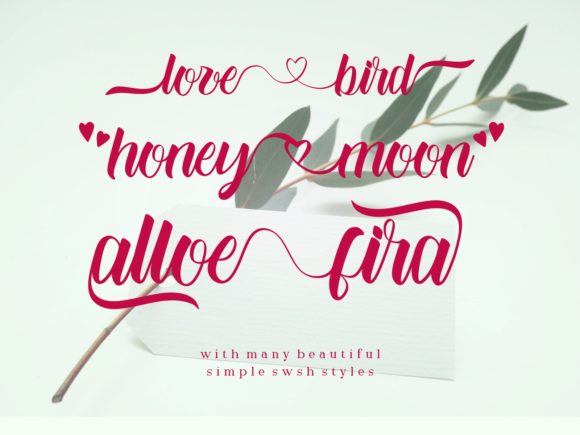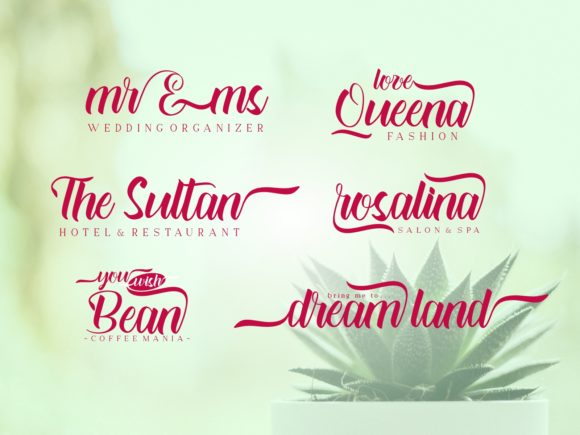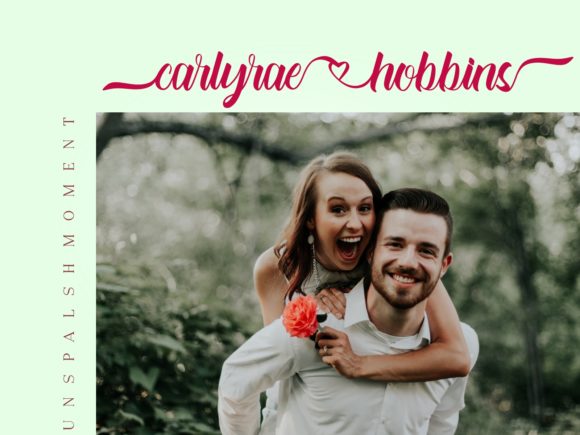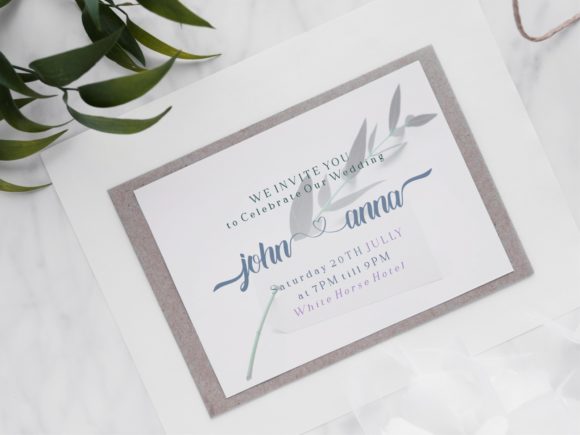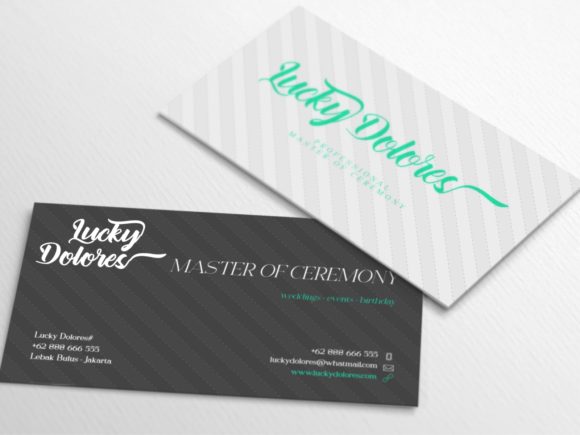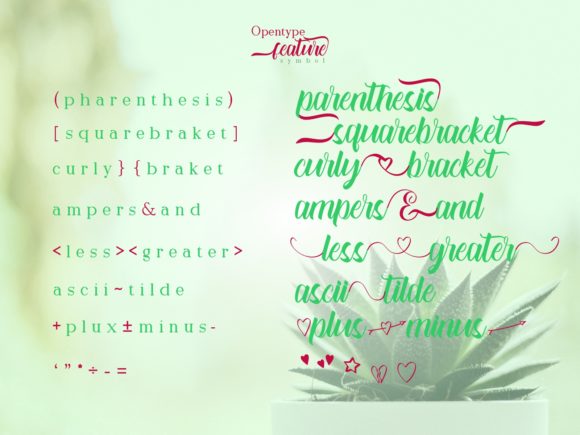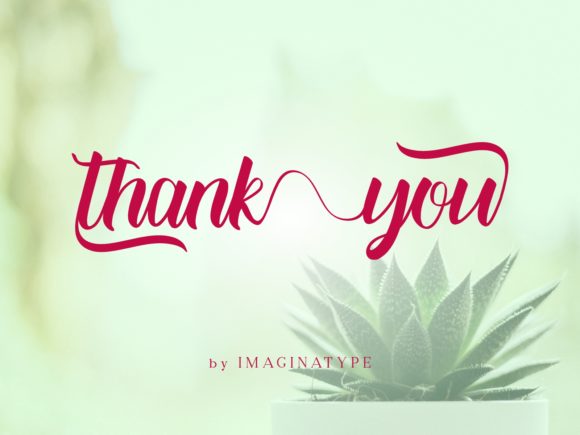
Alloefira Font
About Alloefira Font
Alloefira is a beautiful handwritten font. It features a varying baseline, smooth lines, gorgeous glyphs and stunning alternates. Fall in love with its authentic feel and use it to create gorgeous wedding invitations, beautiful stationary art, eye-catching social media posts, and cute greeting cards.